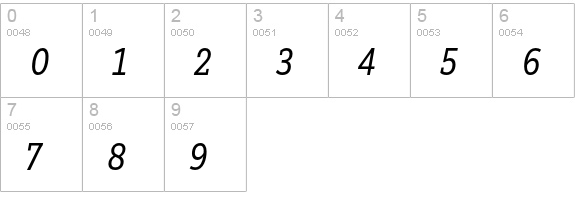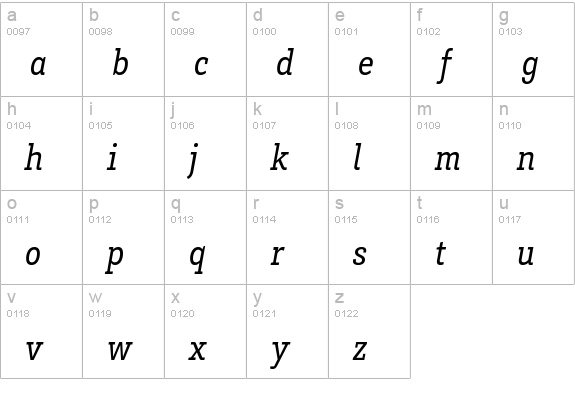
Brix Slab Cond Regular Italic Font Details
Brix Slab Cond Regular Italic is the standard, neutral, condensed-width, italic variant in the Brix typeface family \xE2\x80\x94 well suited to general body text, paragraphs, and standard typographic work.
Brix Slab Cond Regular Italic is a modern and versatile typeface that exudes a sense of sophistication and elegance. Its sleek design and subtle italics make it perfect for adding a touch of style to any project. The clean lines and balanced proportions of this font make it ideal for both display and body text, ensuring readability and impact. What sets Brix Slab Cond Regular Italic apart is not just its aesthetic appeal, but also its availability for free download at FontsMarket.com. This means that you can easily access and use this high-quality font without any cost, making it a valuable resource for designers, creatives, and anyone looking to enhance their projects with a touch of sophistication. Whether you're working on a website, branding materials, print designs, or any other project, Brix Slab Cond Regular Italic is sure to elevate your work with its modern and elegant appearance.